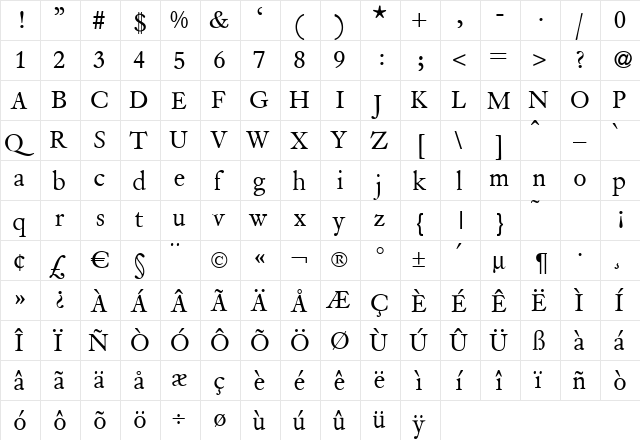
VanityBook Regular
Design Context for VanityBook Typeface
VanityBook takes a measured approach to typography — its balanced proportions and neutral character make it a reliable workhorse for both digital and print work.